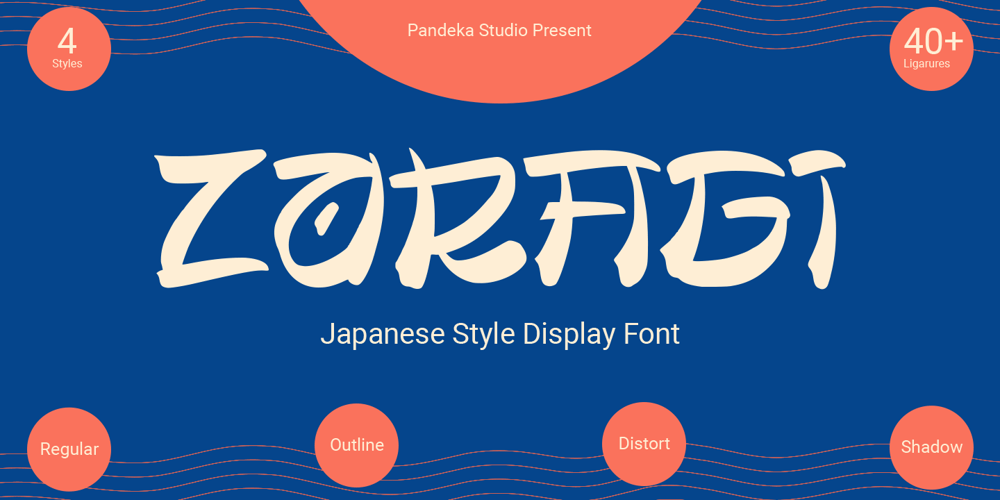
Zaragi
Zaragi font
Zaragi Font Family was designed by Sagara Nararya and published by Pandeka Studio. Zaragi contains 4 styles and family package options. Konnichiwa and Annyeonghaseyo! 🌸✨Introducing Zaragi, a stunning display font inspired by the beauty of Japanese and Korean aesthetics. Combining traditional East Asian charm with a modern touch, Zaragi is the perfect choice for bringing authentic Asian vibes into your designs.Each letter in Zaragi is carefully crafted, blending traditional artistic elements with contemporary styles. With 30+ unique ligatures and alternates, you can easily create distinctive and captivating typography compositions. This font is ideal for branding, posters, packaging, social media designs, and so much more!What’s Included: Main Files formats 4 Styles: Regular, Outline, Distort, Shadow Full Character Set: uppercase, lowercase, numbers, symbols, punctuation and ligature 40+ Unique Ligatures for creative and unique combinations Easy to Use: Compatible with both PC & Mac Works seamlessly with popular design software like Adobe Illustrator, Photoshop, Microsoft Word, Canva, and more PUA Encoded: All features accessible without additional software Language Support: Danish, English, Estonian, Filipino, Finnish, French, Friulian, Galician, German, Gusii, Indonesian, Irish, Italian, Luxembourgish, Norwegian Bokmål, Norwegian Nynorsk, Nyankole, Oromo, Portuguese, Romansh, Rombo, Spanish, Swedish, Swiss-German, Uzbek (Latin)Thank you and happy designing!Pandeka Studio